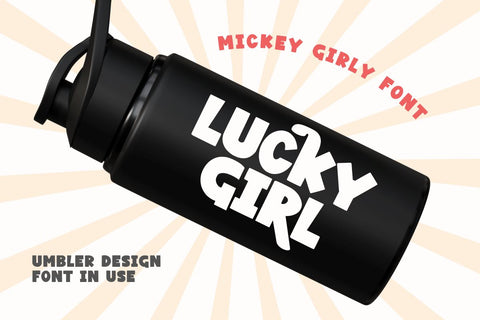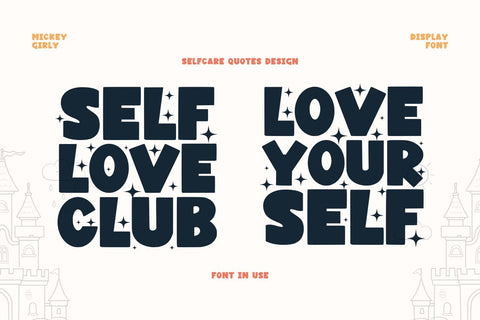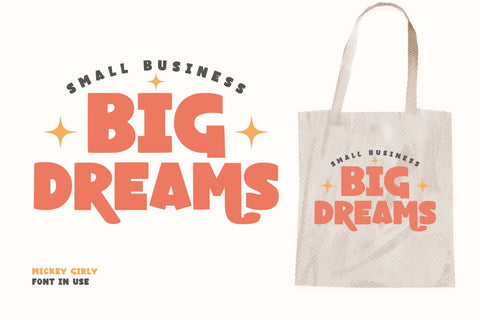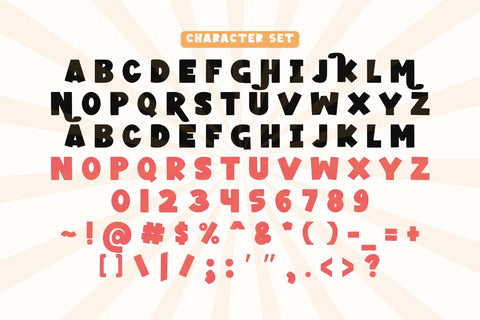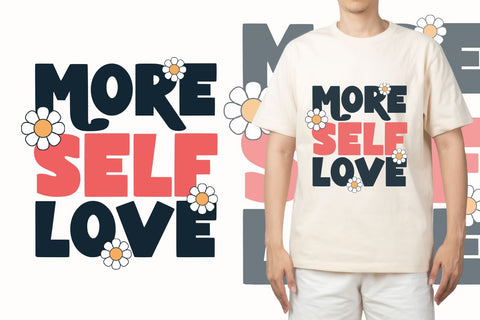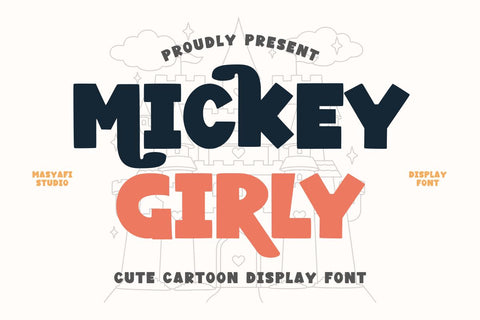
Mickey Girly - Cartoon Display Font
Mickey Girly is a fun and cute cartoon display font, inspired by cartoon design. This font is perfect for a design that requires a playful and fun accent. Mickey Girly is suitable for book covers, posters, packaging, merchandise, logotype, and much more.